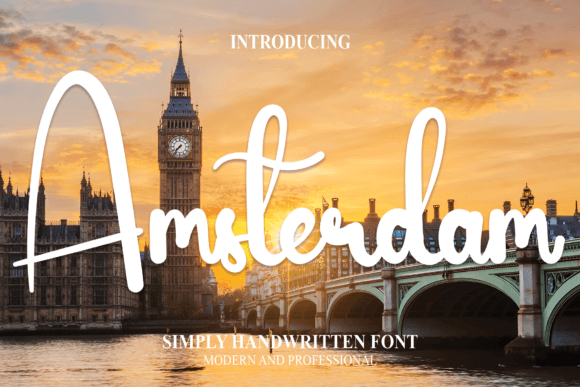
About Amsterdam Font
Amsterdam font is a simple and friendly handwritten typeface designed to bring warmth and charm to your creative projects. With its clean, approachable style, this font is incredibly versatile, making it an ideal choice for a wide range of applications. Whether you are working on crafts, digital designs, presentations, or greeting cards, Amsterdam font offers a natural, personal touch that helps your work stand out.
Simple and Friendly Design
Amsterdam font captures the essence of genuine handwriting, featuring smooth lines and easy readability. Its simplicity makes it suitable for both formal and casual designs. The friendly curves and balanced letterforms allow it to fit seamlessly into various creative projects, adding an inviting and authentic feel.
Perfect for Craft Projects
If you enjoy handmade or DIY crafts, Amsterdam font enhances your designs with a genuine, handwritten touch. Use it to personalize invitations, scrapbooks, or labels to make your projects feel special and heartfelt. The font’s simplicity ensures that it complements rather than overpowers your creative ideas.
Ideal for Digital Design and Presentations
In digital design, clarity and personality are key. Amsterdam font combines both, providing a legible yet charming style. Whether designing websites, social media graphics, or presentation slides, this font adds a human element that connects with viewers. Its friendly tone makes your messages feel more approachable and engaging.
Great for Greeting Cards and Invitations
Greeting cards and invitations benefit from Amsterdam font’s warm, personal feel. The handwriting style helps create an emotional connection with recipients, making your cards more memorable. It suits a variety of occasions—from birthdays and thank-yous to weddings and holidays—thanks to its adaptable and timeless character.
Versatile and Easy to Use
Amsterdamfont’s straightforward design ensures it is easy to work with in both print and digital formats. Its legibility at different sizes and across multiple mediums makes it a dependable choice for designers, crafters, and hobbyists alike. This versatility means you can use Amsterdamfont throughout your projects to maintain a consistent and cohesive look.
Why Choose Amsterdam Font?
Choosing Amsterdamfont means opting for a typeface that combines simplicity, friendliness, and versatility. It adds a warm, human touch to your designs without complicating the overall look. This font is perfect for anyone looking to infuse their work with genuine personality and approachable style.
Enhance Your Creative Projects with Amsterdam Font
Whether you’re creating crafts, digital designs, or heartfelt cards, Amsterdamfont provides a friendly, handwritten style that enhances your work. Experience the charm and flexibility of Amsterdamfont, and make your projects truly shine with a natural, personal touch.